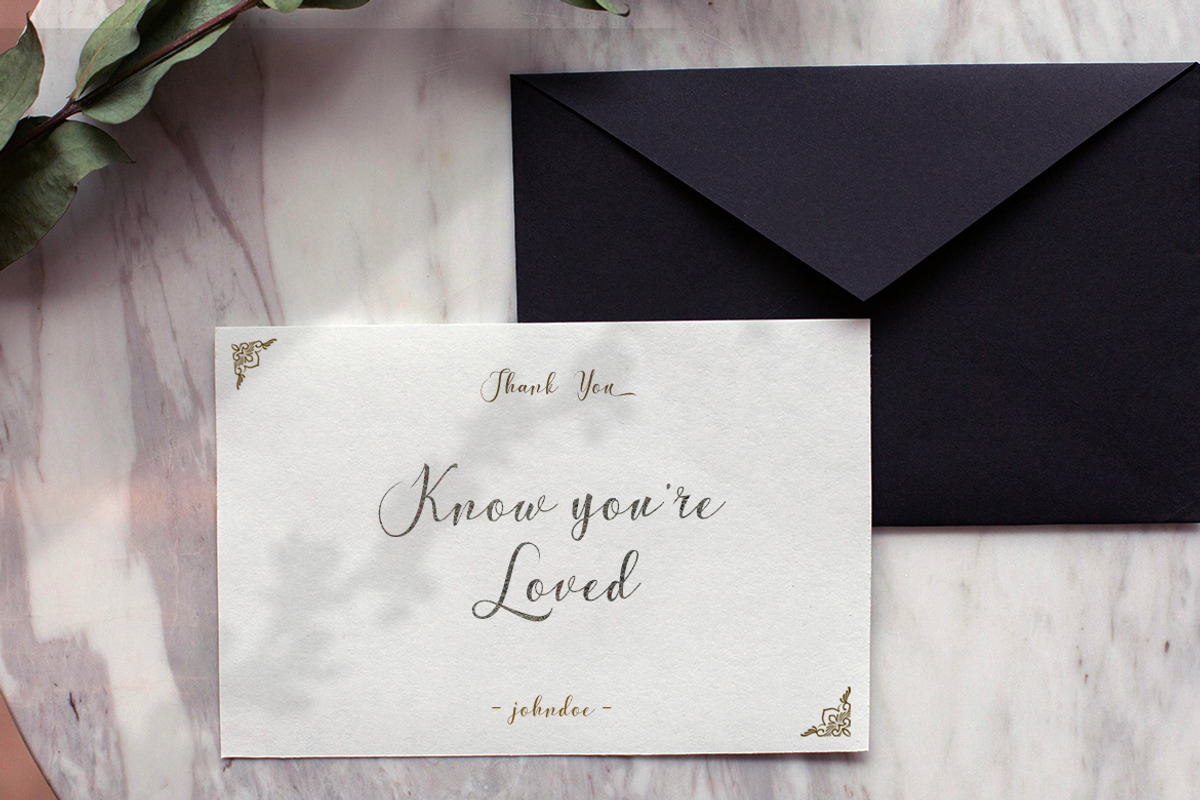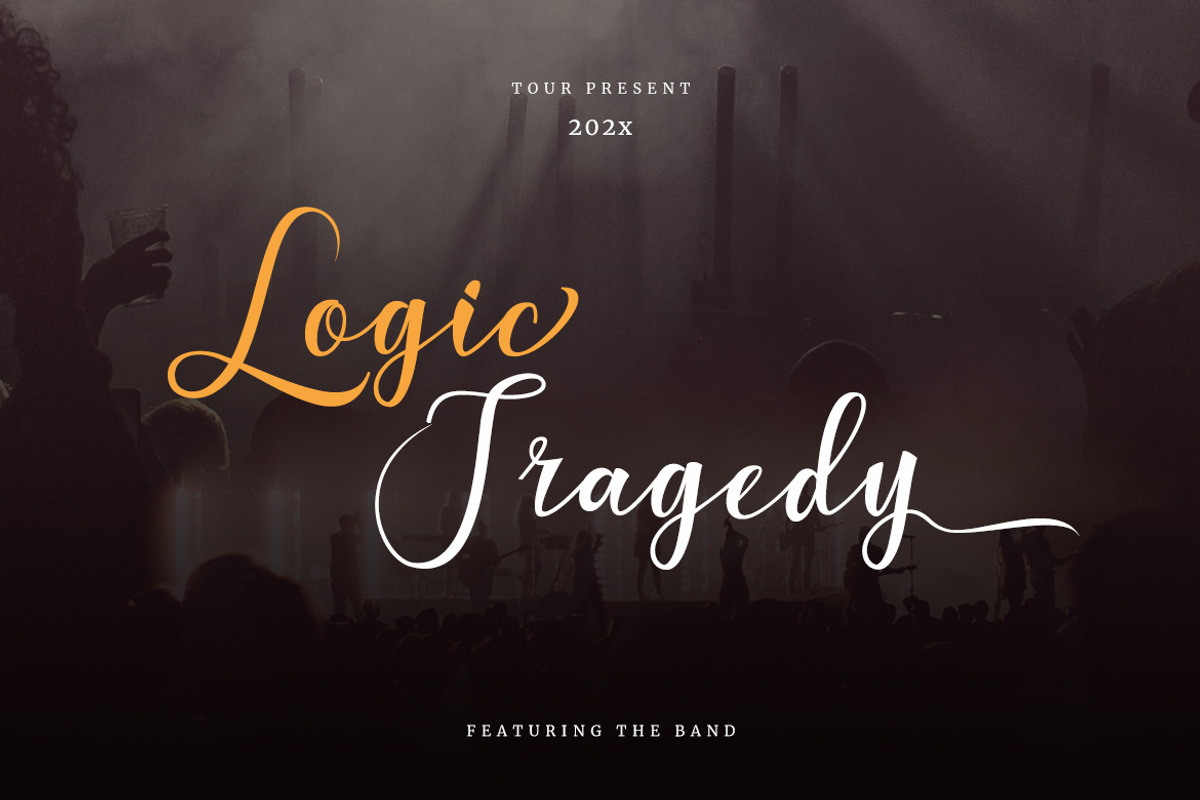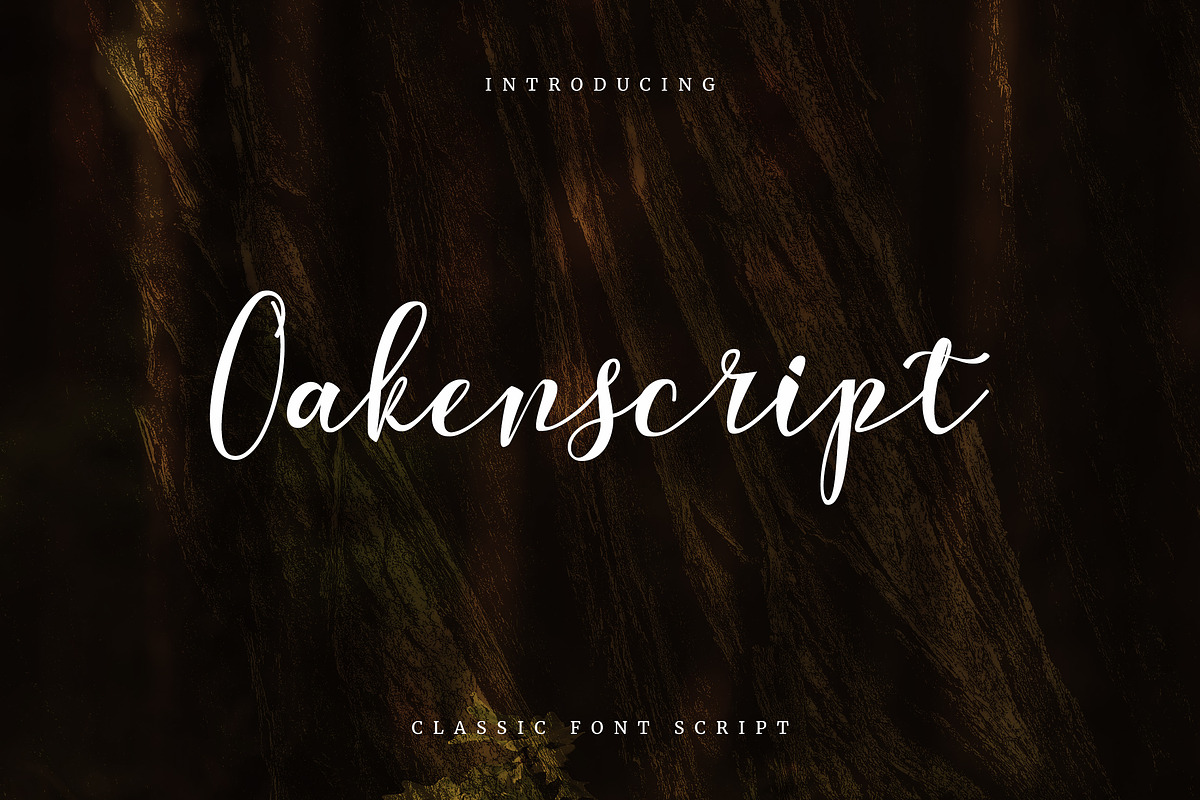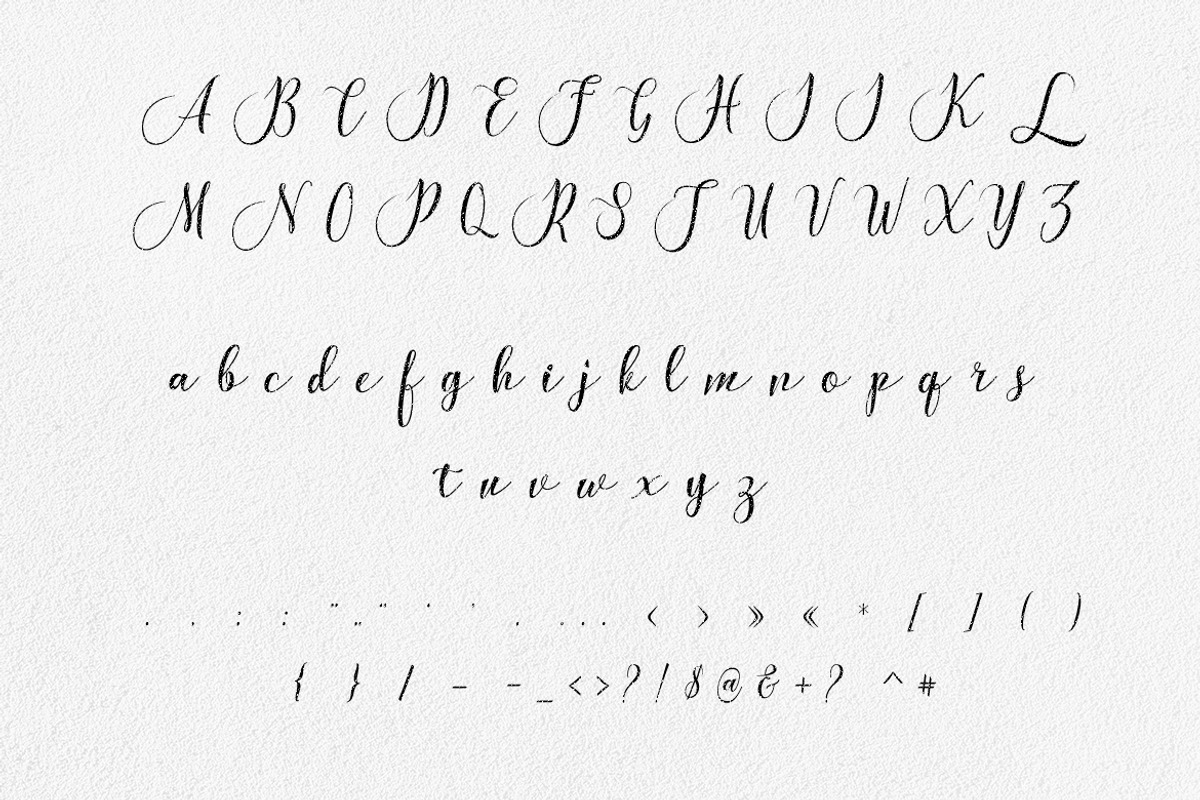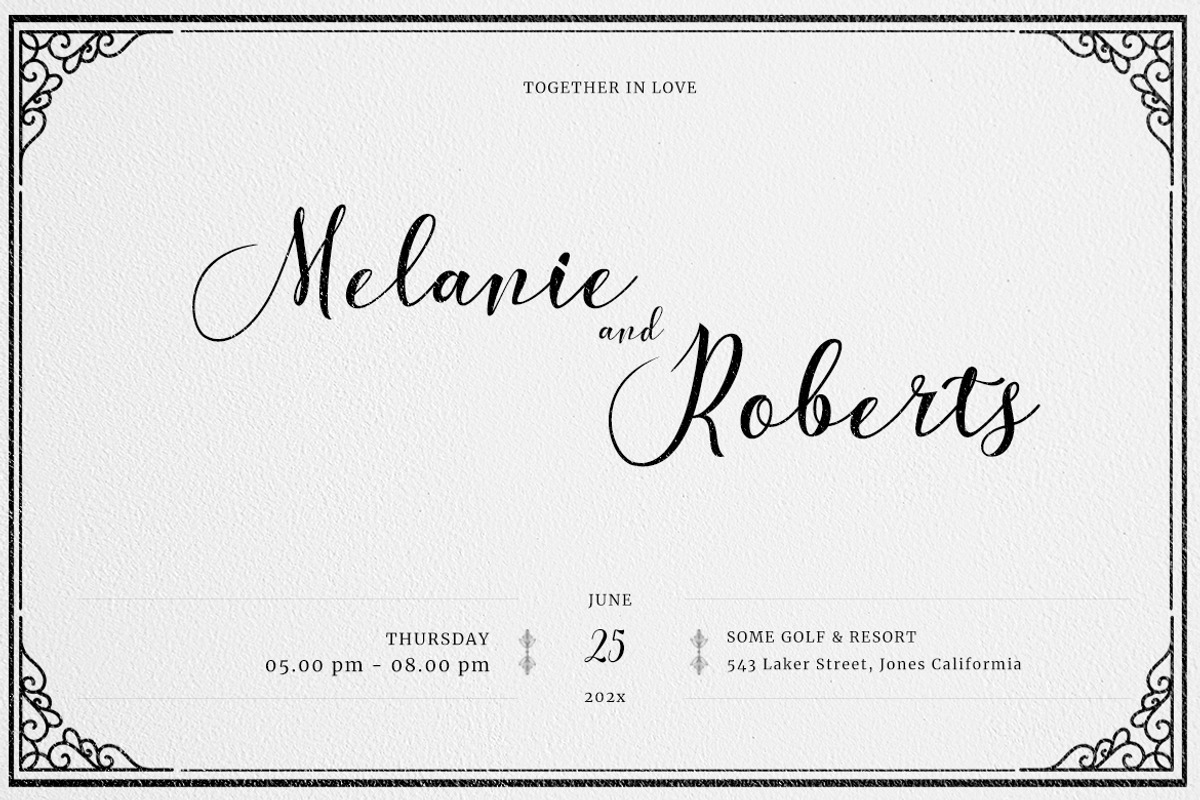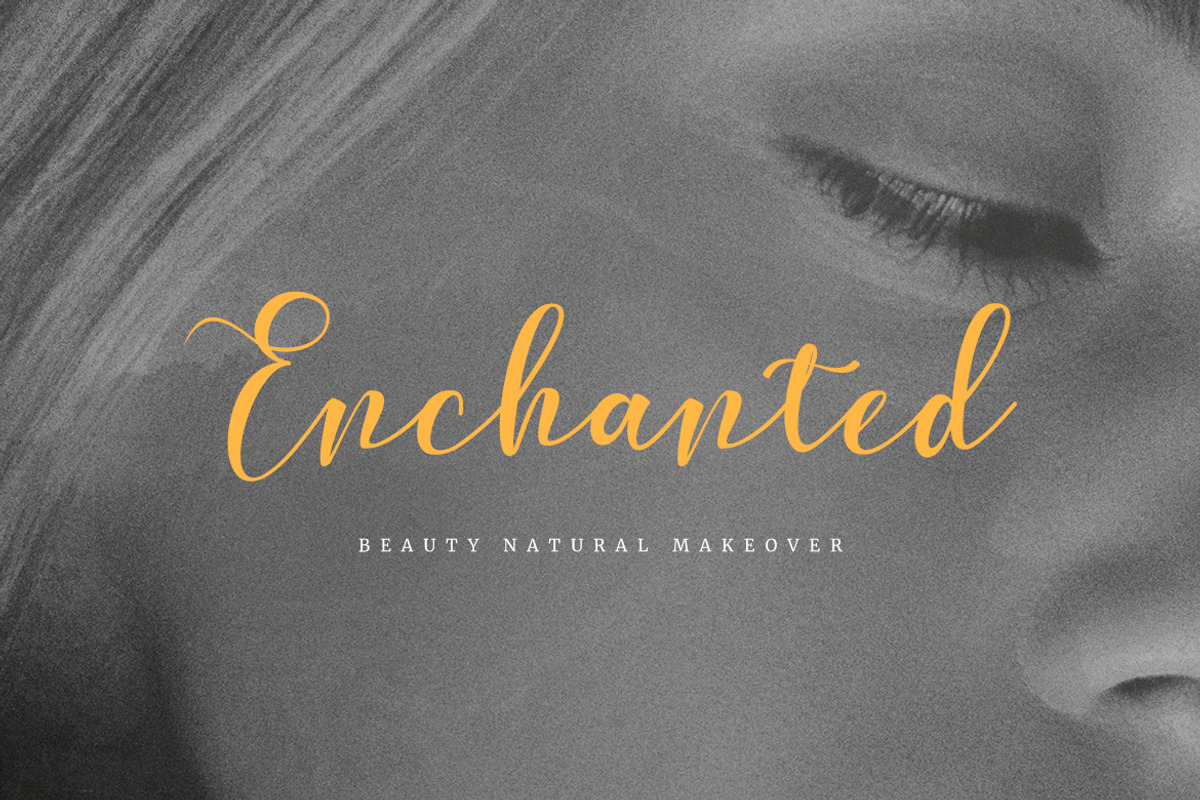
OakenScript A Classif Script
Introducing Oakenscript – a classic font script that seamlessly blends timeless elegance with modern sophistication. With graceful curves and balanced spacing, Oakenscript adds a touch of refinement to any design project. Elevate your creations with Oakenscript – where tradition meets contemporary charm.